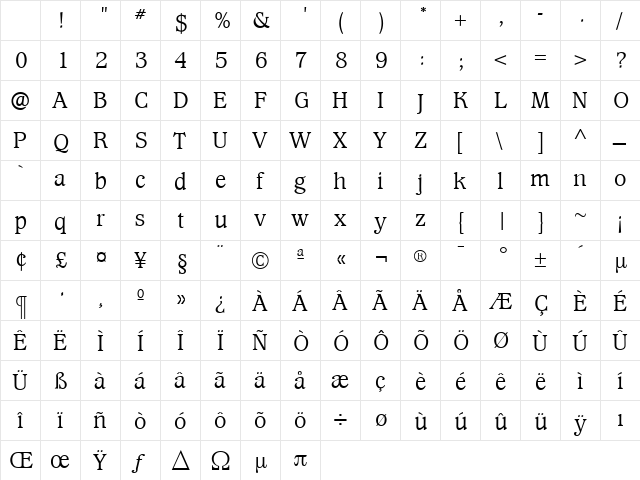
WaverlyLight is a composed and adaptable typeface that performs quietly and consistently across a wide range of design contexts. Its slender proportions lend an understated elegance to any composition.